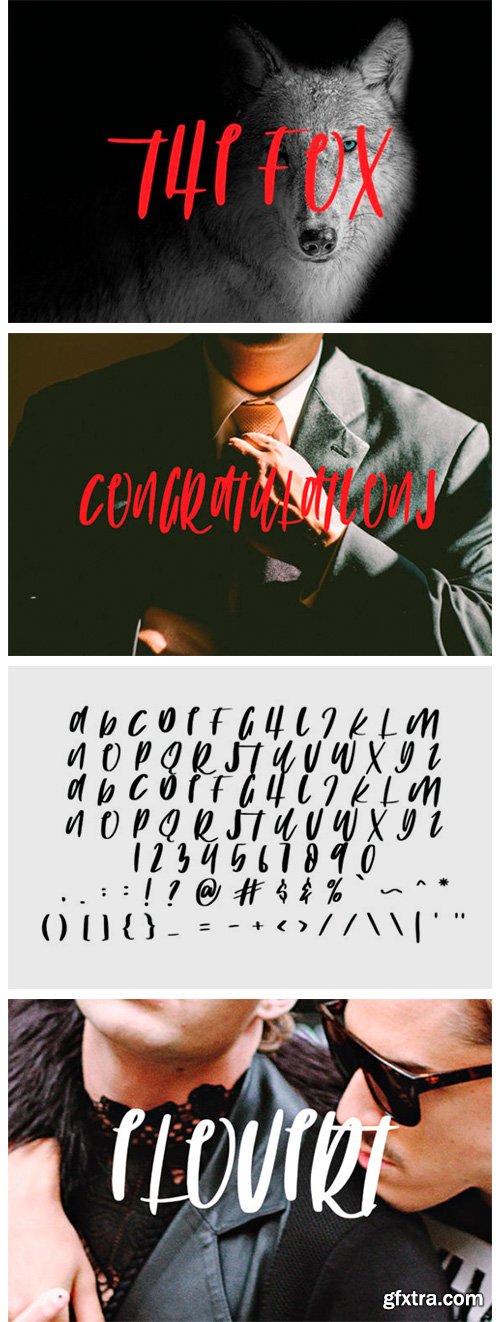
The Fox Font
The Fox is a playful and strong script font that’s great for adding that raw and unique energy to any design project. Get inspired by its unique charm!